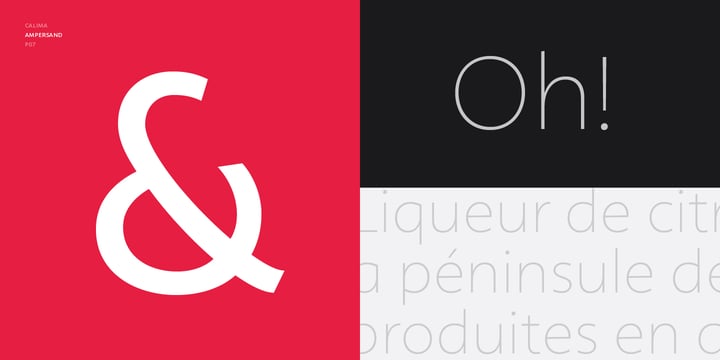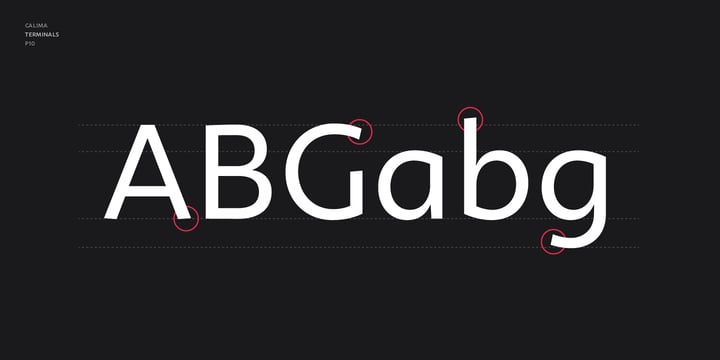
Calima
Calima by JCFonts
Calima Font Family was designed by Joël Carrouché and published by JCFonts. Calima contains 6 styles and family package options. More about this family
About Calima Font Family
Calima is a humanist sans serif typeface available in six weights. The idea behind this family was simply to try to bring the spontaneity of an italic to an upright roman typeface. The result is a fresh and dynamic sans with clean shapes, well suited for short texts and display use. The fonts, available in Opentype format, include diacritics for most European languages and a variety of Opentype features: oldstyle and tabular figures, subscript and superscript, fractions, case-sensitive forms, localized forms and more.
Designers: Joël Carrouché
Publisher: JCFonts
Foundry: JCFonts